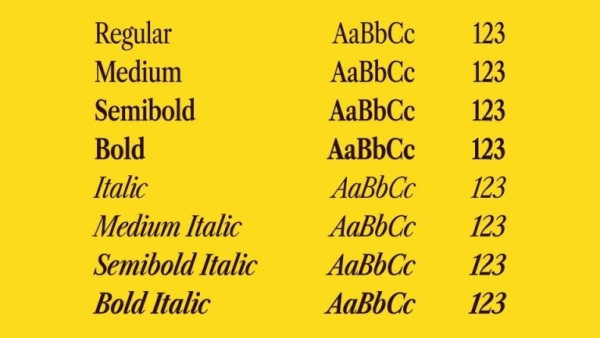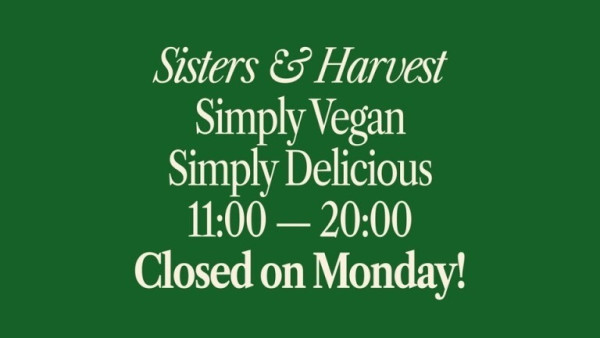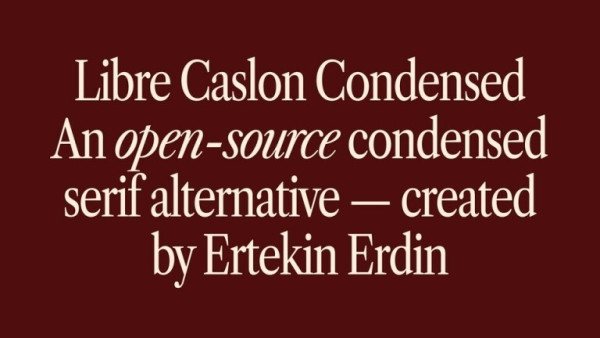
Libre Caslon Condensed Font
Libre Caslon Condensed Font, Created from a font designer named Ertekin Erdin, is a graceful and reliable serif, useful in any situation. This font is a condensed serif alternative designed to fill a gap in the market for high-quality condensed serif alternatives. This font, created by modifying the Libre Caslon Text font family, offers a harmonious combination of elegance and readability, making it an ideal choice for various design projects.